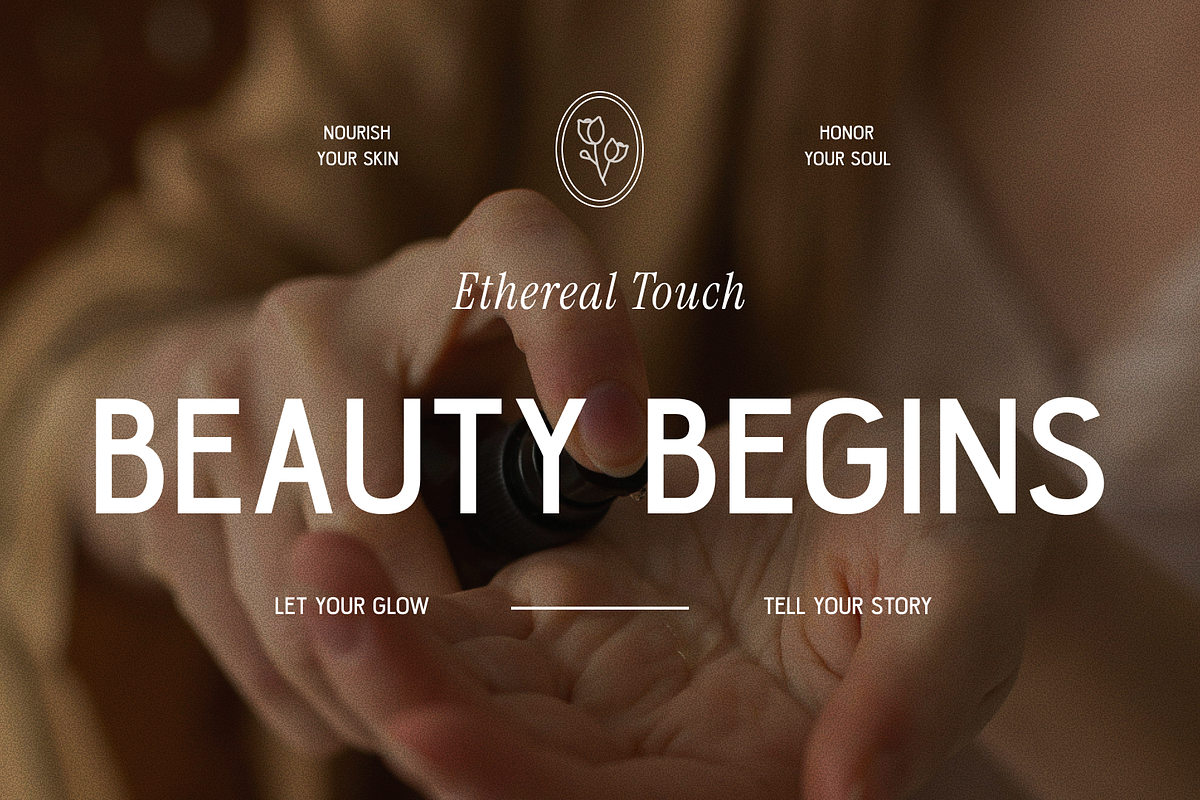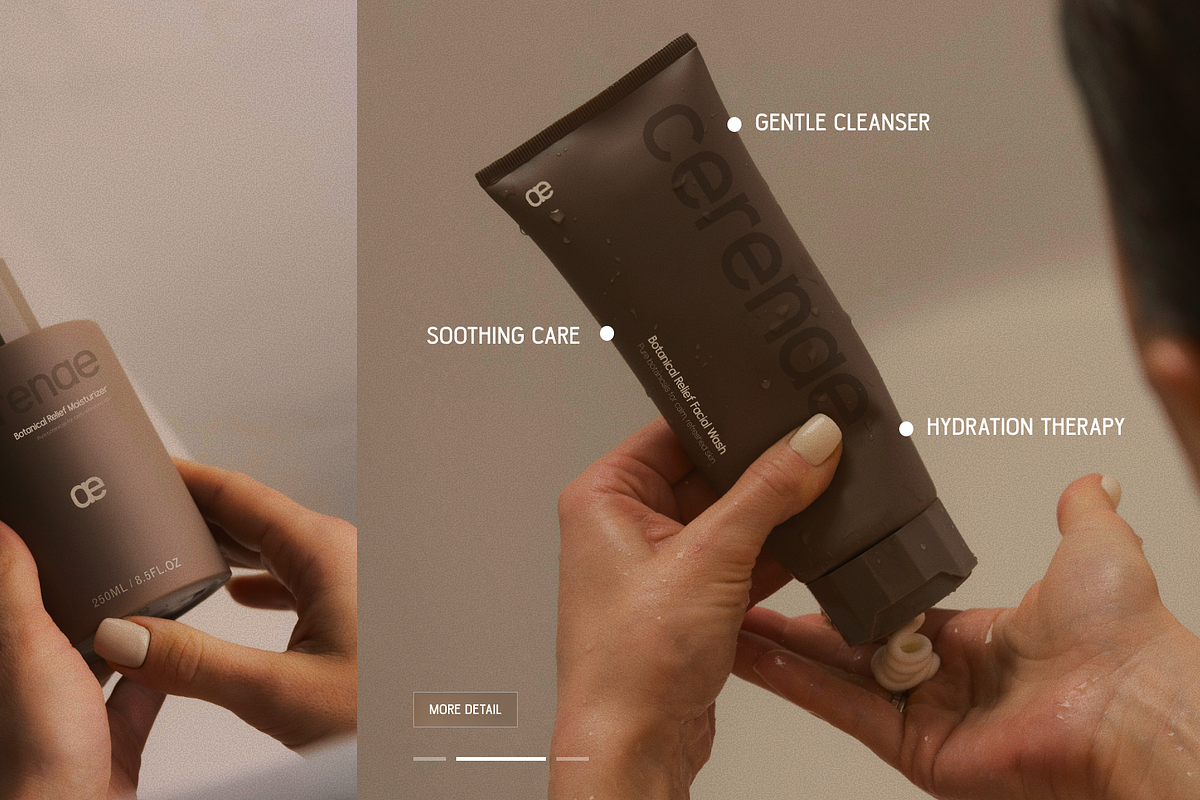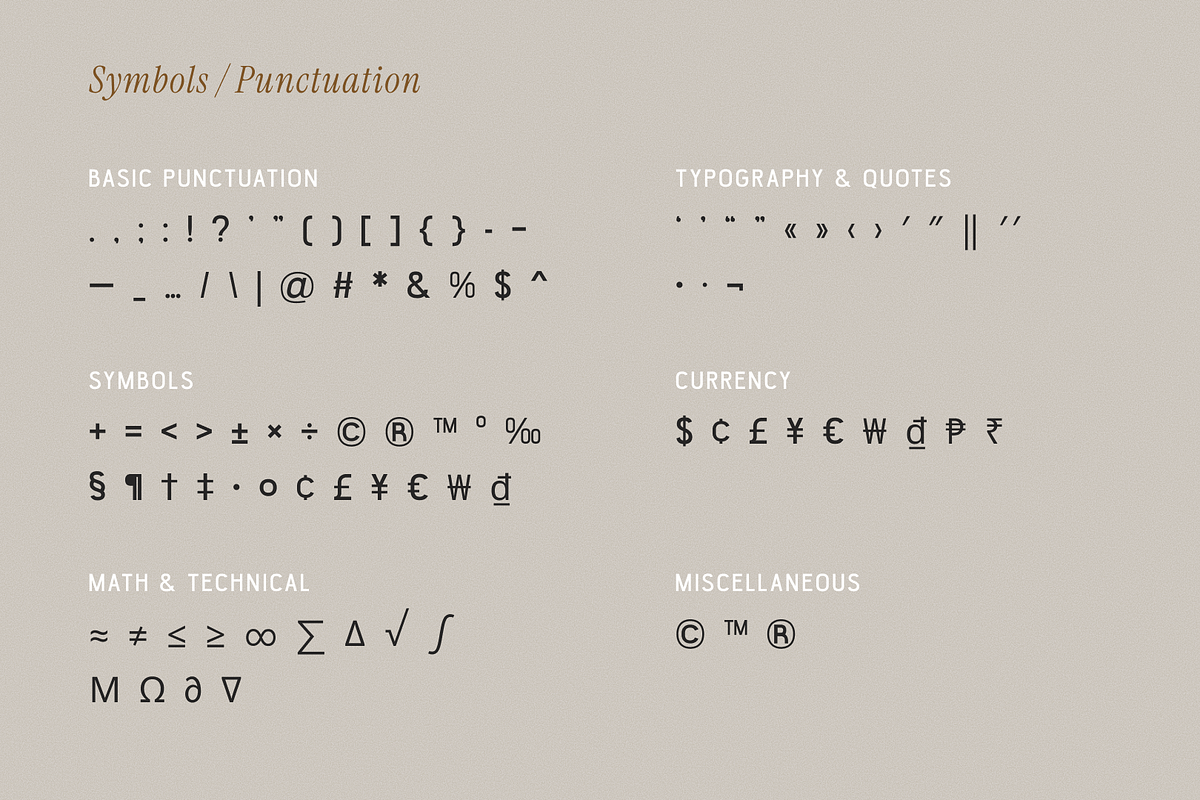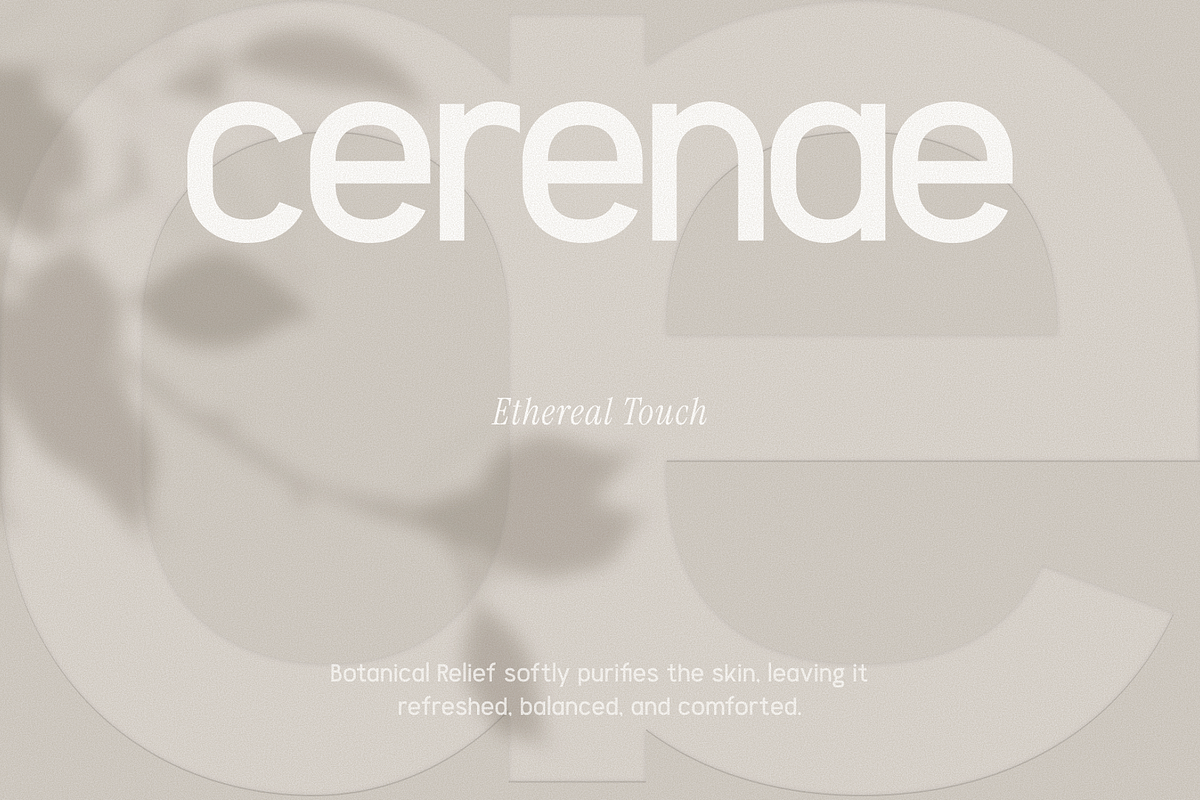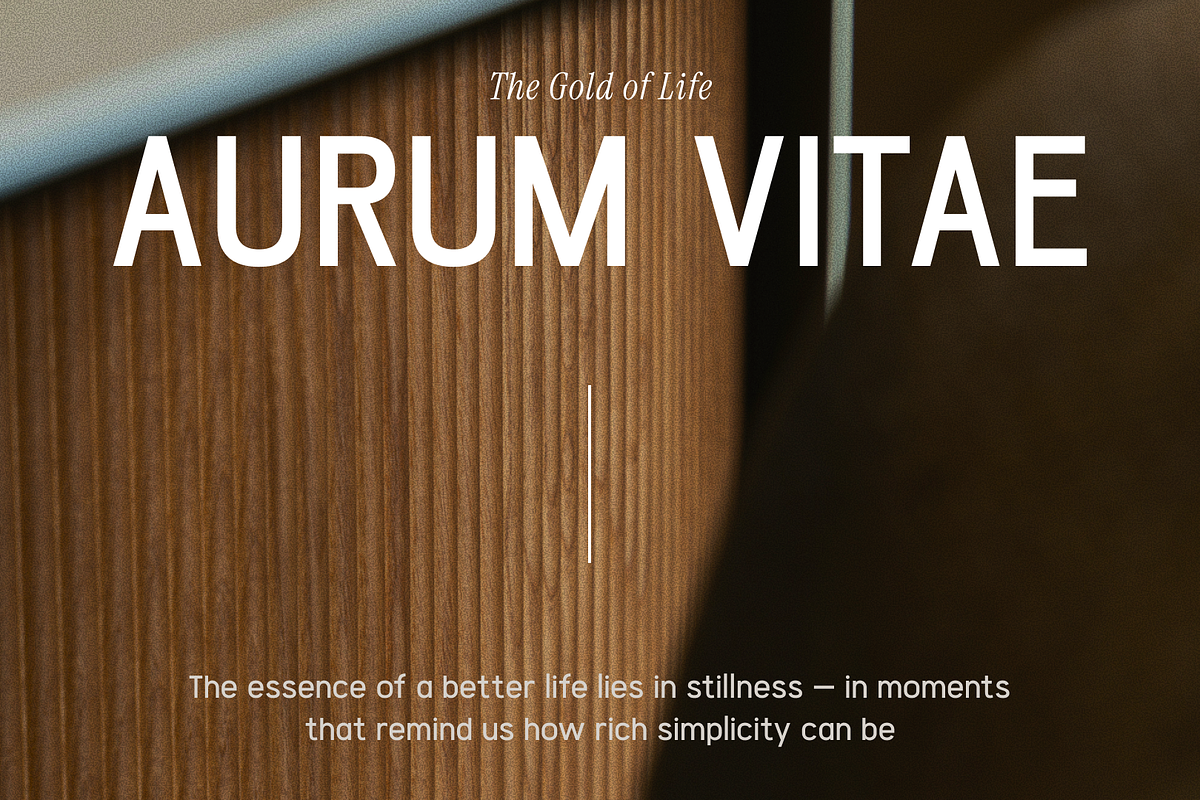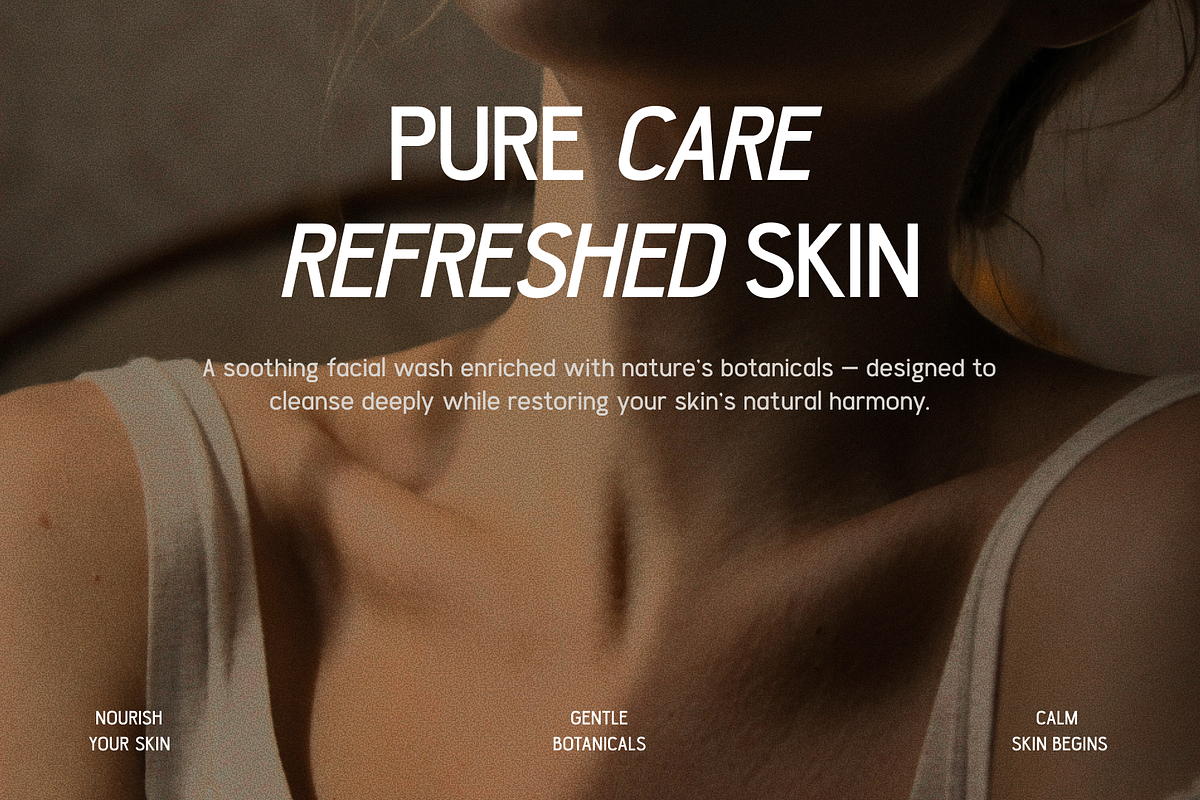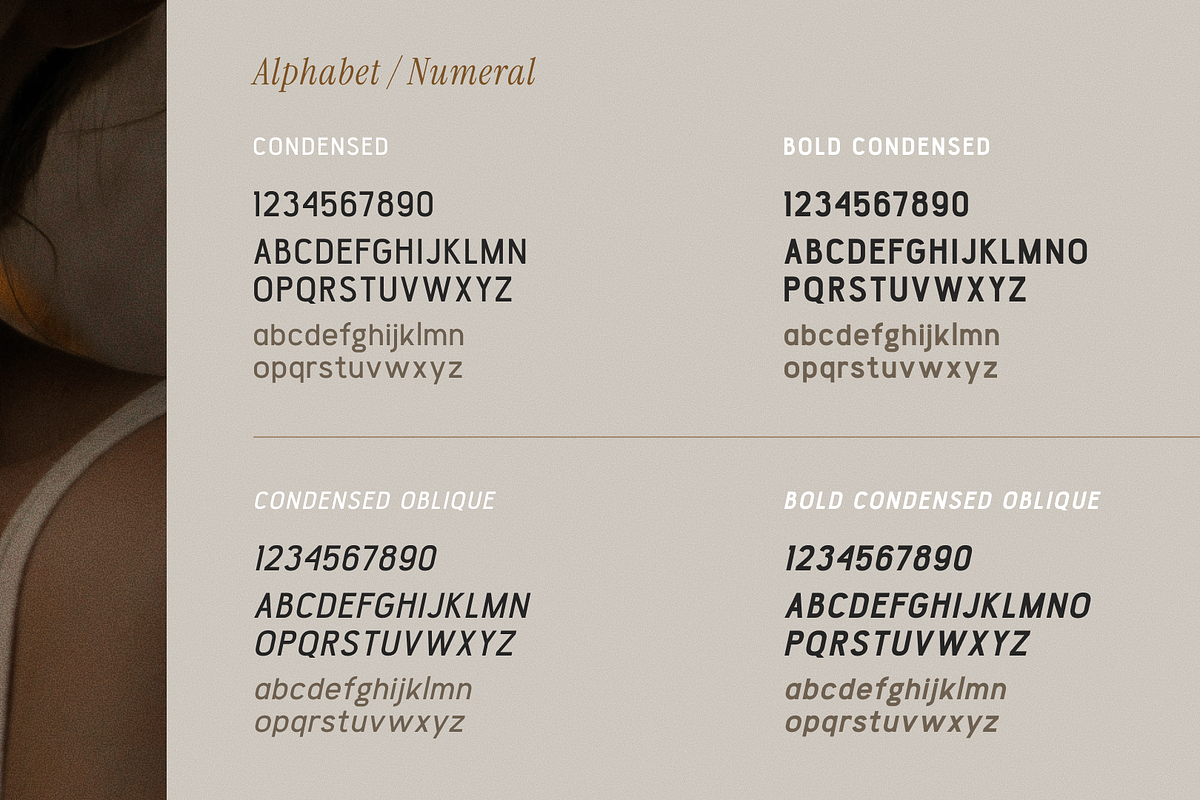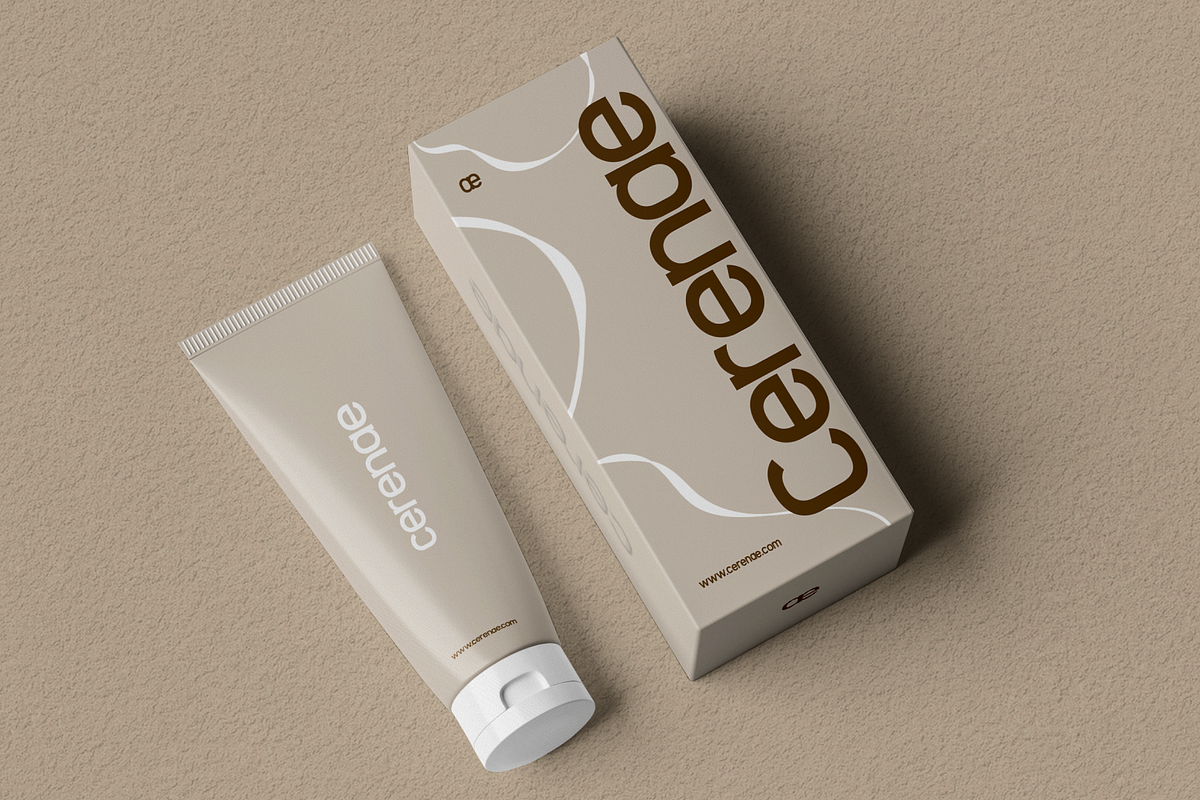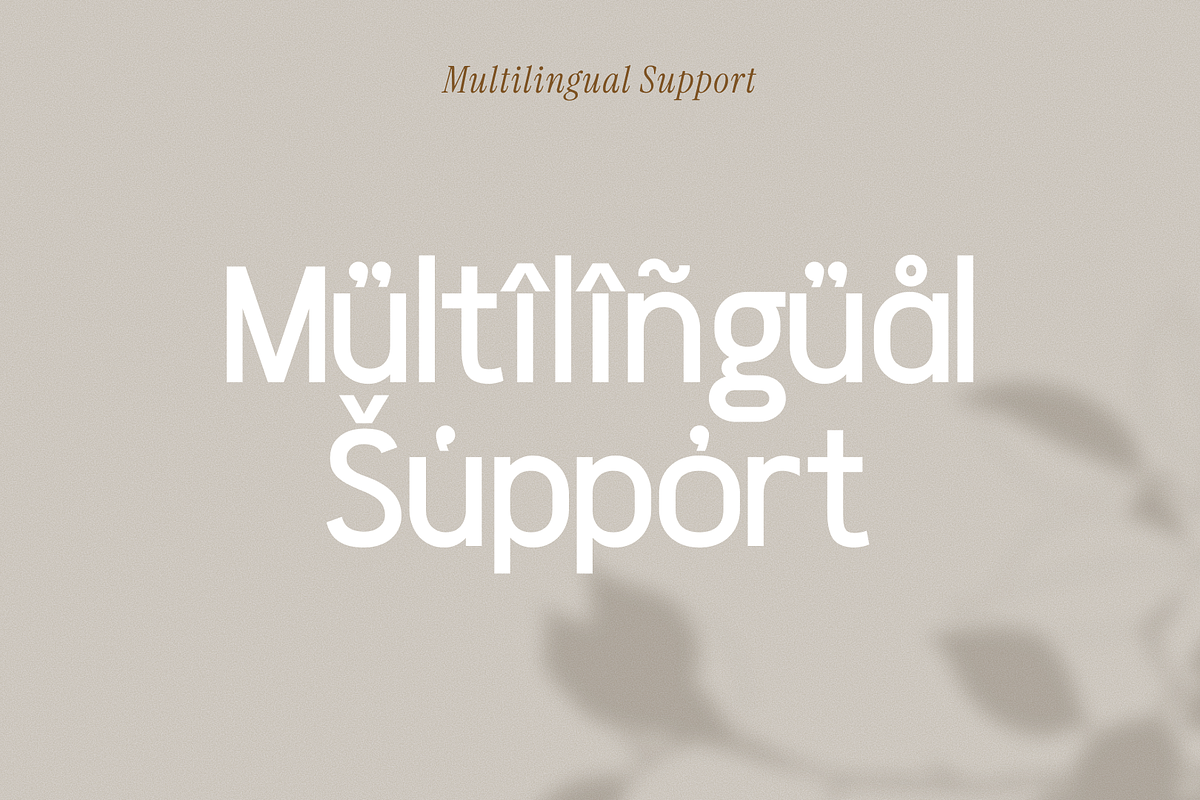
Mornelle - Modern Sans Font
Mornelle is a sharp, sophisticated sans serif that combines modern clarity with timeless elegance. Its defining characteristic is its condensed structure, which allows it to create a strong vertical impact, making it perfect for powerful headlines and statements where space is at a premium. The clean, crisp letterforms and balanced spacing give Mornelle a professional and confident voice, ideal for high-end branding, editorial design, and sophisticated digital interfaces.
This isn't just a single font; it's a versatile and complete font family. Mornelle comes equipped with multiple weights and matching obliques, giving you a full toolkit for creating clear visual hierarchies. From the impactful Bold Condensed for logos and titles to the clear and legible regular weights for subheadings, its utility is unmatched. With comprehensive multilingual support and a full set of symbols and punctuation, Mornelle is a reliable workhorse ready to bring a touch of class to any project.
- 4 Styles Font : Regular, Oblique, Bold, Bold Oblique
- Standard letter A-Z and a-z
- Numeral, Symbol, and Punctuations
- OpenType Feature